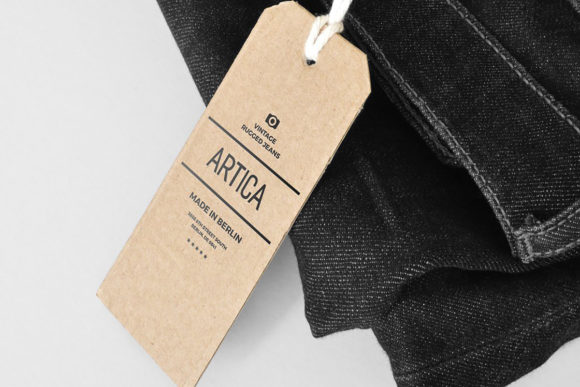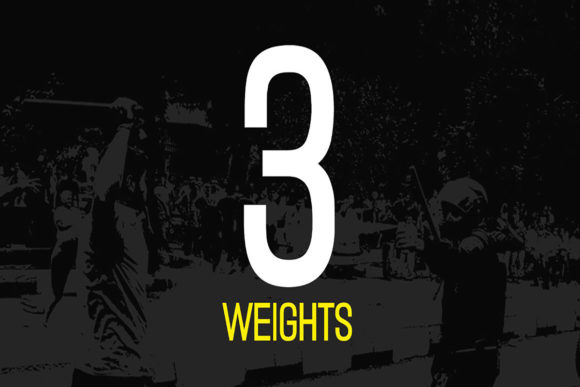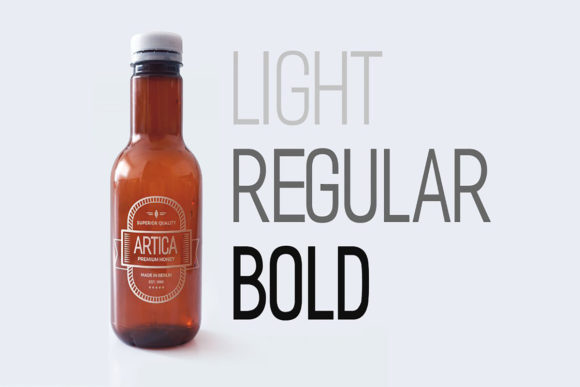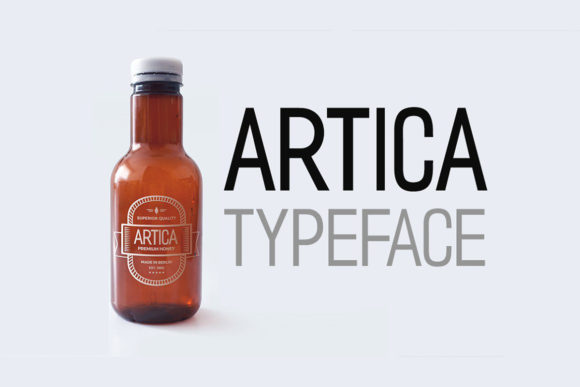
The Ultimate Guide to Artica Font: Elevate Your Designs with this Cool, Simple, and Neat Display Font
I’ll never forget the time I was working on a project for a client who wanted a font that was both modern and elegant. I had spent hours browsing through font libraries, but nothing seemed quite right. That was when I stumbled upon Artica Font. Its clean lines, simple design, and versatility immediately caught my attention. I knew right then and there that it was the perfect fit for my project. In this article, I’ll share with you why Artica Font is a game-changer for designers, crafters, and creative hobbyists alike.
An Honest Review of Artica Font
What I Love About Artica Font
- ✨ Clean and Simple Design: Artica Font boasts a sleek and modern design that makes it perfect for a wide range of projects, from logos and branding to posters and social media graphics.
- ✅ Highly Versatile: Whether you’re working on a digital project or a print project, Artica Font adapts seamlessly, making it a great addition to your font library.
- 💡 Attention-Grabbing: The font’s unique style ensures that your text stands out, making it ideal for headings, titles, and emphasis text.
While Artica Font is an excellent choice for many projects, there are a few things to keep in mind:
- 🤔 Limited Serif Options: Artica Font is primarily a sans-serif font, which might limit its use in projects that require a more traditional serif look.
- ⚠️ Not Suitable for Body Text: Due to its clean and simple design, Artica Font may not be the best choice for body text, especially in smaller font sizes.
- Experiment with OpenType features, such as stylistic alternates and glyphs, to add more creativity to your text.
- Take advantage of OpenType features, such as ligatures and swashes, to add more flair to your text.
- Use the font’s stylistic alternates and glyphs to add more creativity to your text.
The Backstory of Artica Font
Artica Font was designed with the goal of creating a clean, simple, and versatile font that could be used in a wide range of projects. The designer wanted to create a font that was both modern and elegant, with a unique style that would make it stand out from other fonts. The result is a font that is both stylish and functional.
| Font Name | Artica Font |
| Author | designova |
| What type of projects is Artica Font best suited for? | Artica Font is best suited for projects that require a modern and elegant look, such as logos, branding, posters, and social media graphics. |
| Can I use Artica Font for body text? | While Artica Font can be used for body text, it may not be the best choice, especially in smaller font sizes. It’s better suited for headings and titles. |
In conclusion, Artica Font is a cool, simple, and neat display font that can elevate your designs and make them stand out. Its clean lines, simple design, and versatility make it a great addition to any font library. With its OpenType features, glyphs, and stylistic alternates, Artica Font offers endless creative possibilities. Whether you’re a designer, crafter, or creative hobbyist, Artica Font is definitely worth checking out.